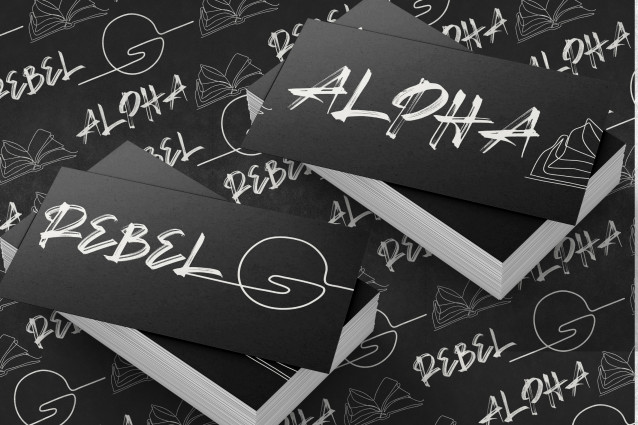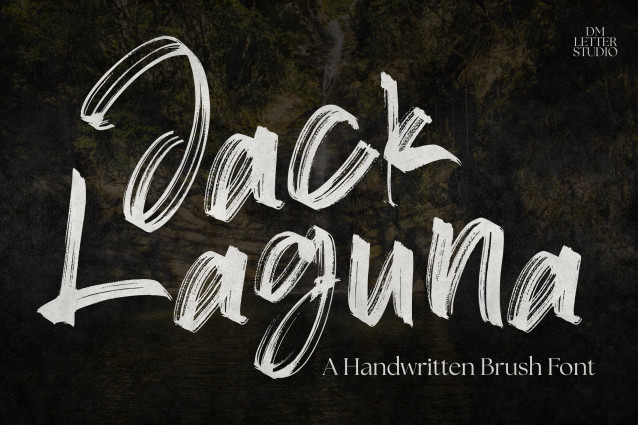
Jack Laguna Font
Jack Laguna Font is a bold and expressive handwritten brush font that captures the free-spirited vibe of coastal living and creative energy. With thick strokes, textured edges, and a natural flow, this font adds personality and punch to any design. Perfect for adventurous branding, casual posters, and modern social media content.